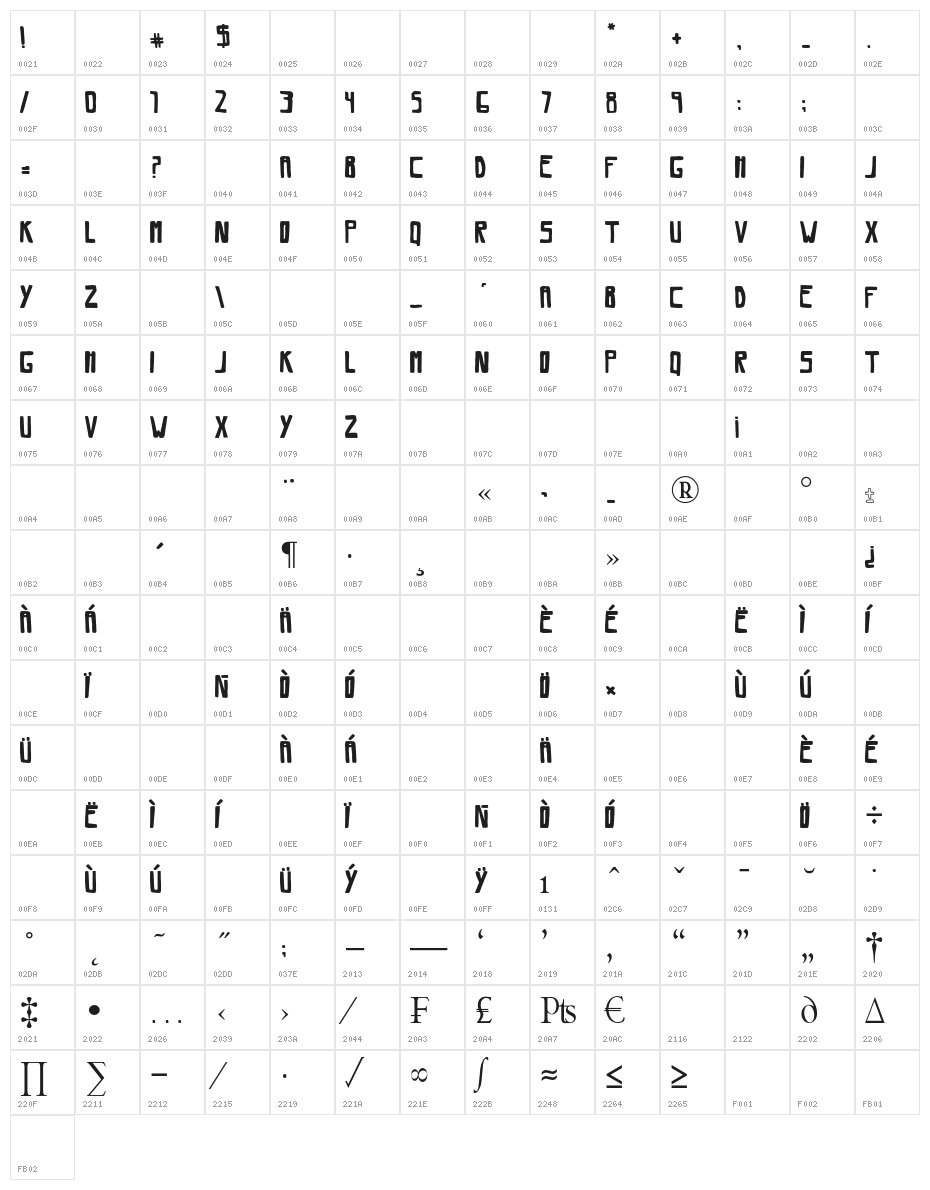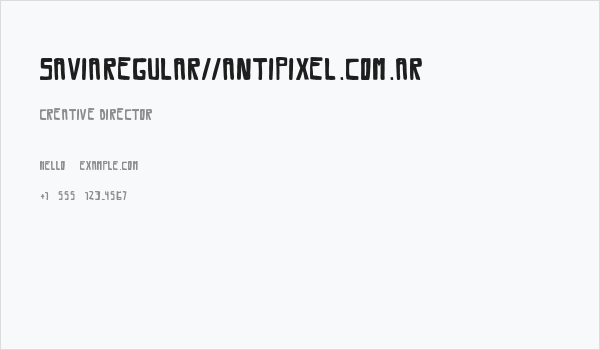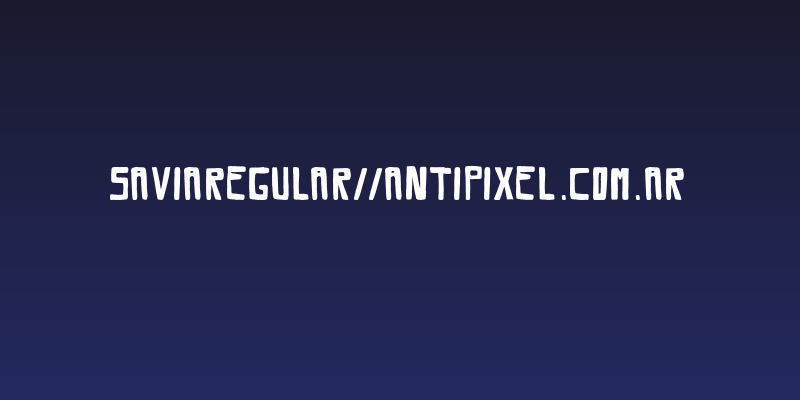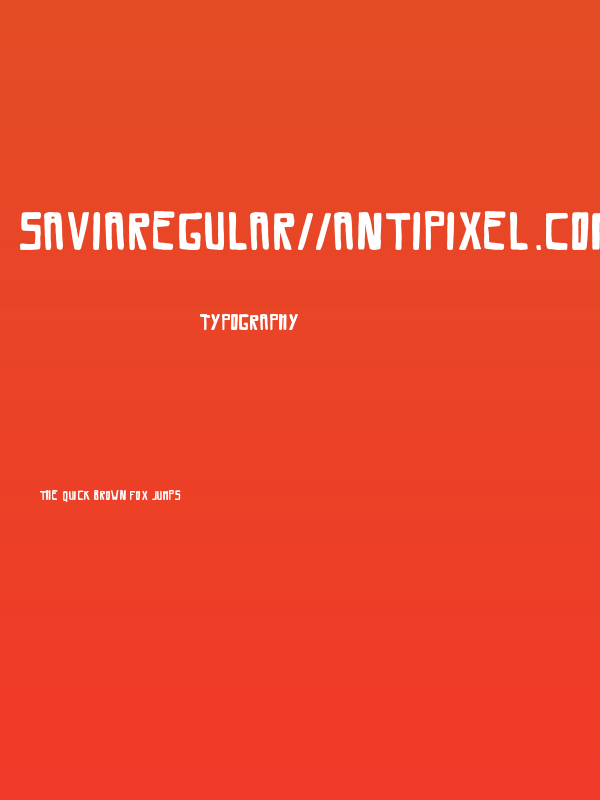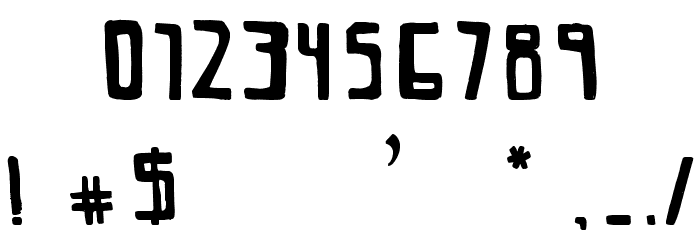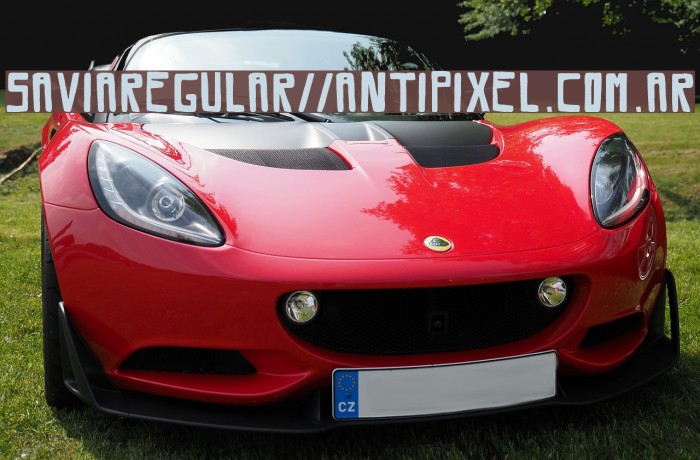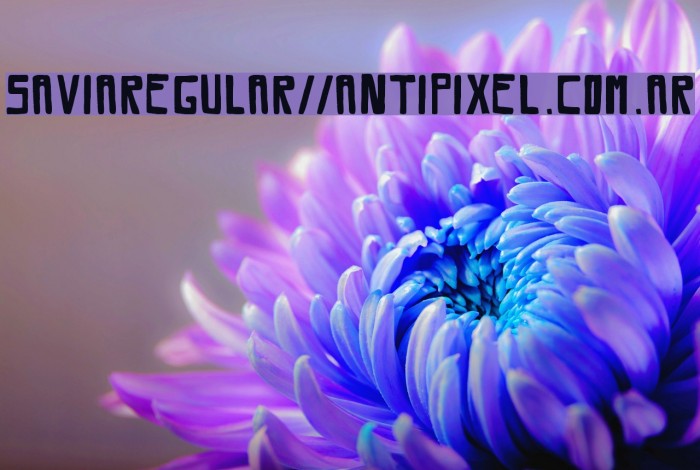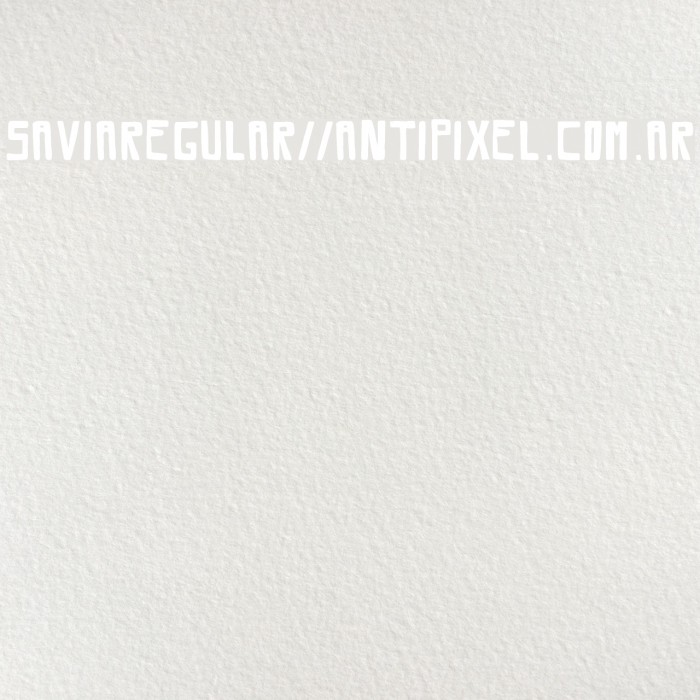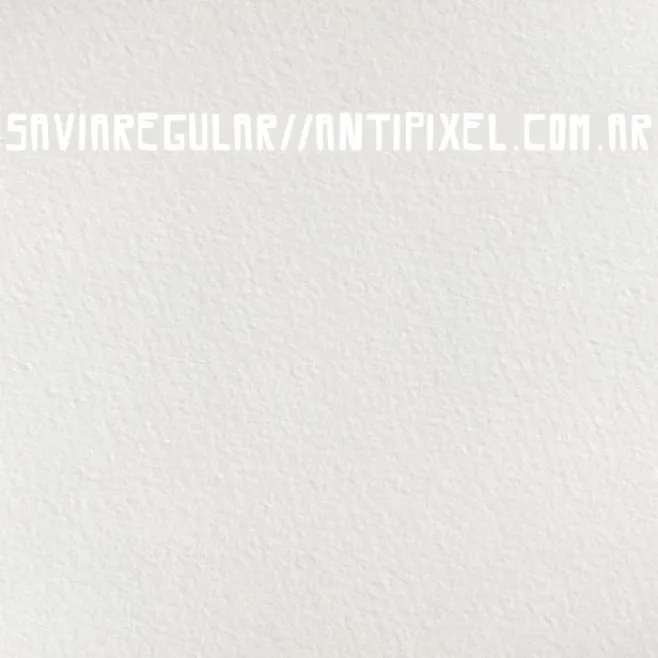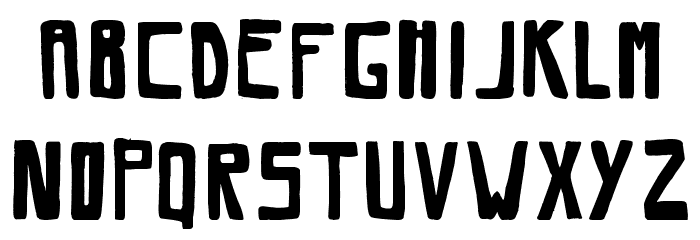
SaviaRegular//ANTIPIXEL.COM.AR Font
SaviaRegular//ANTIPIXEL.COM.AR Description
This font features a bold and rugged style with a hand-drawn appearance, characterized by its uneven strokes and slightly irregular shapes. The uppercase and lowercase letters maintain a consistent width, giving the font a uniform look despite its organic feel. The numerals and special characters follow the same design principles, ensuring cohesion across all glyphs. The font's distinct personality makes it suitable for projects that require a touch of individuality and creativity. Its boldness ensures readability while the unique design adds a playful and artistic flair.